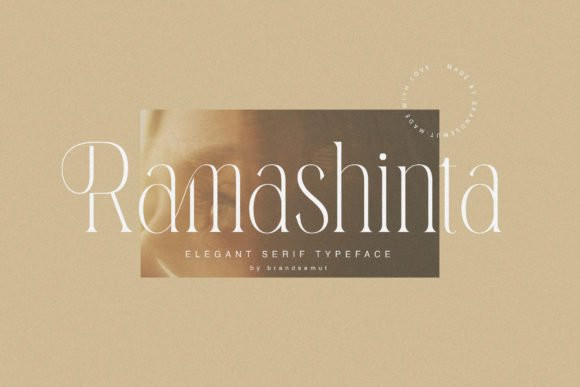
Ramashinta Font
Ramashinta is a thin lettered and tall serif font. Whether you’re using it for crafting, digital designing, presentations or greeting cards making, it’s perfect!